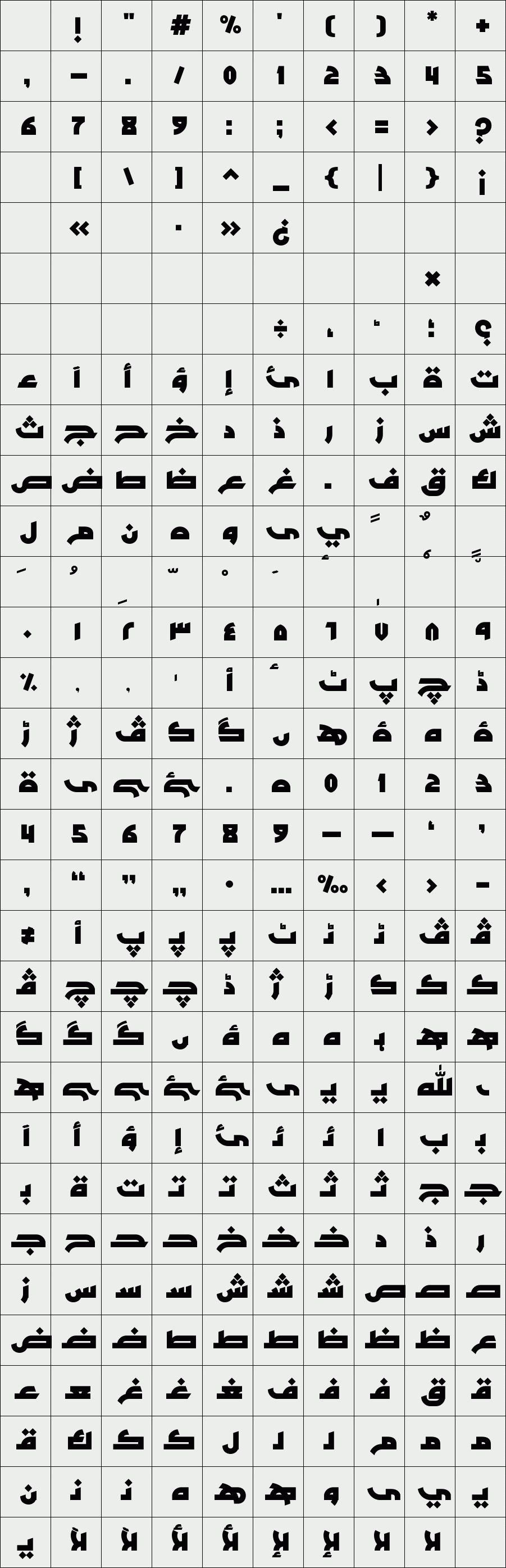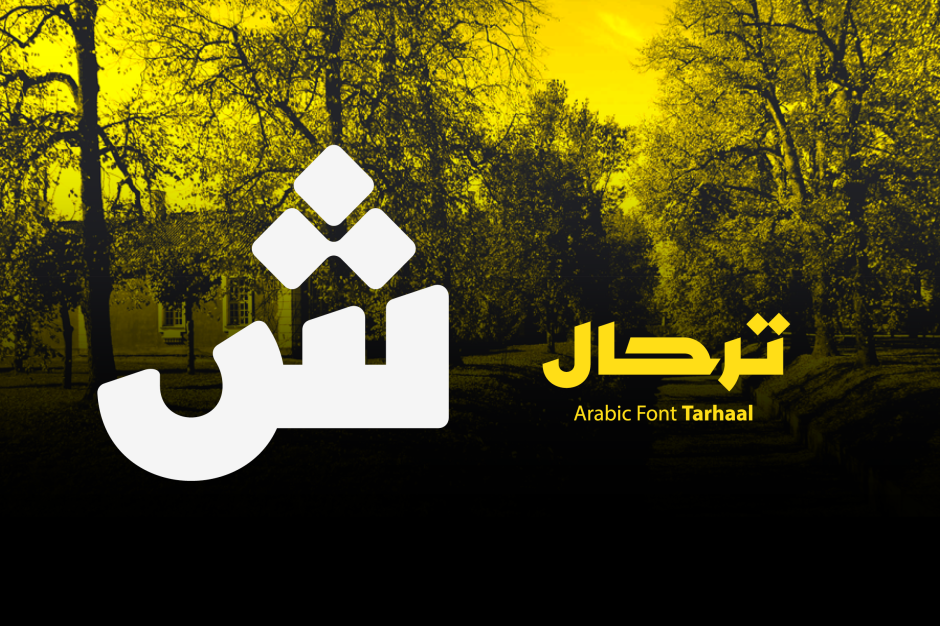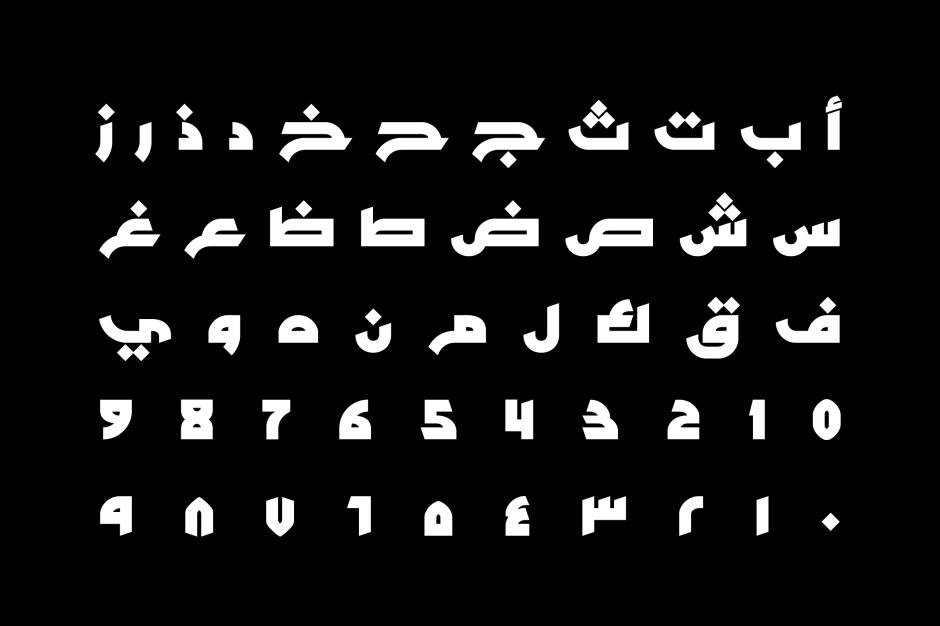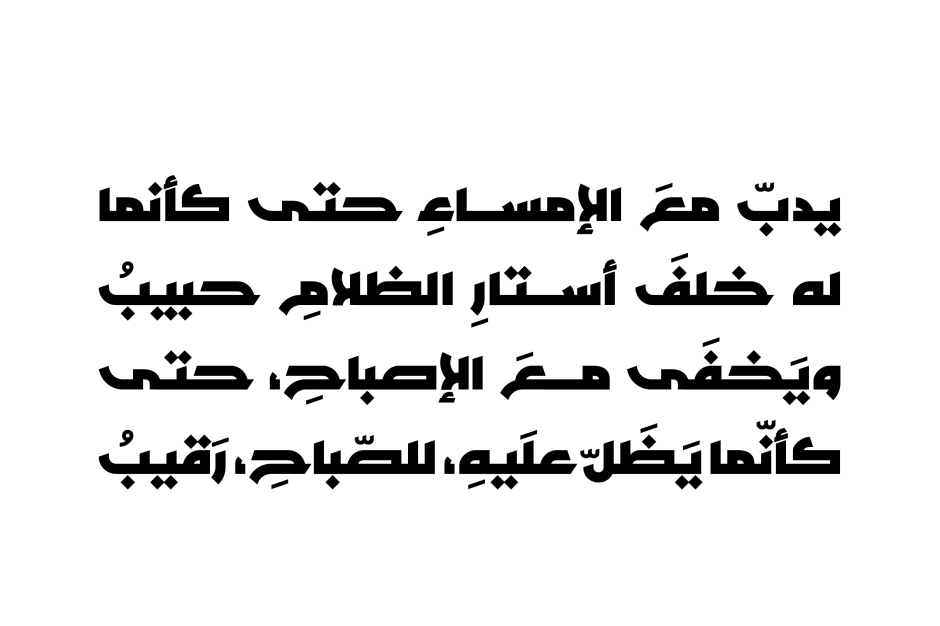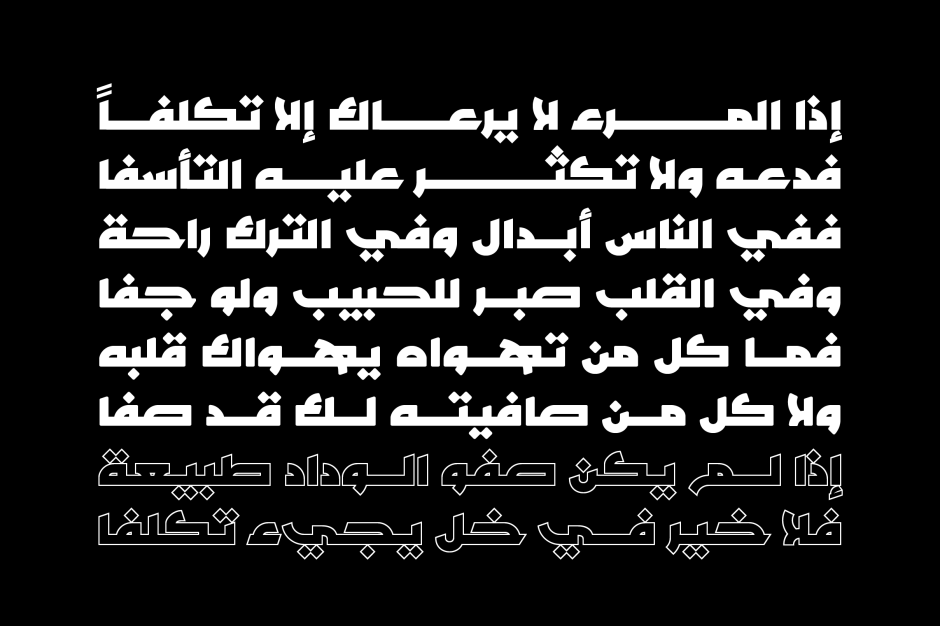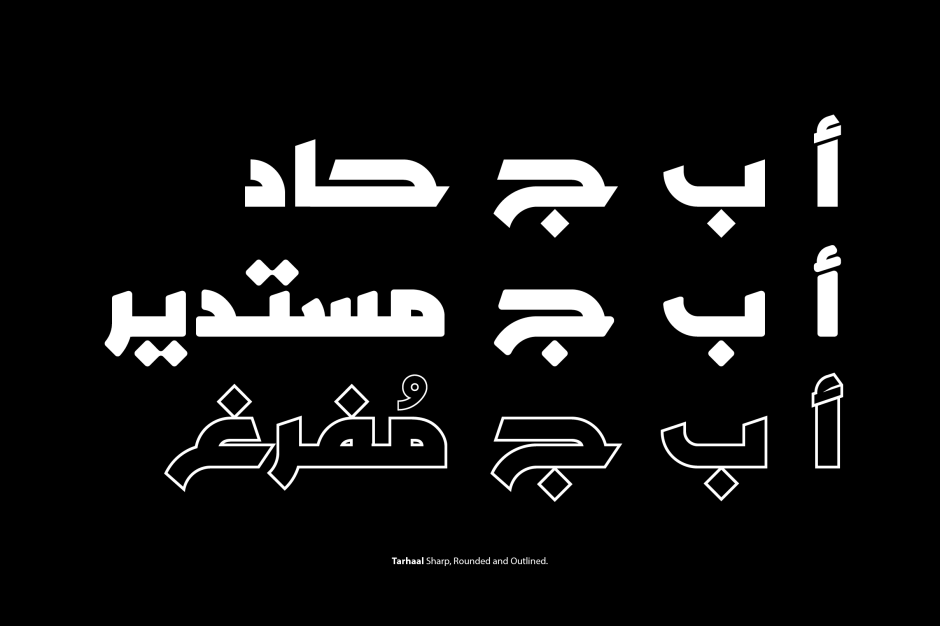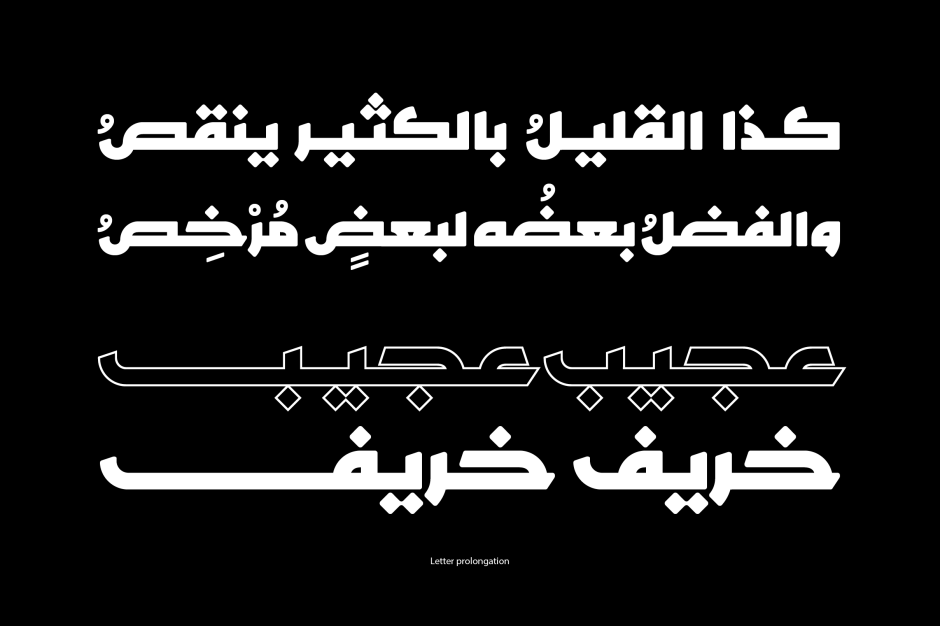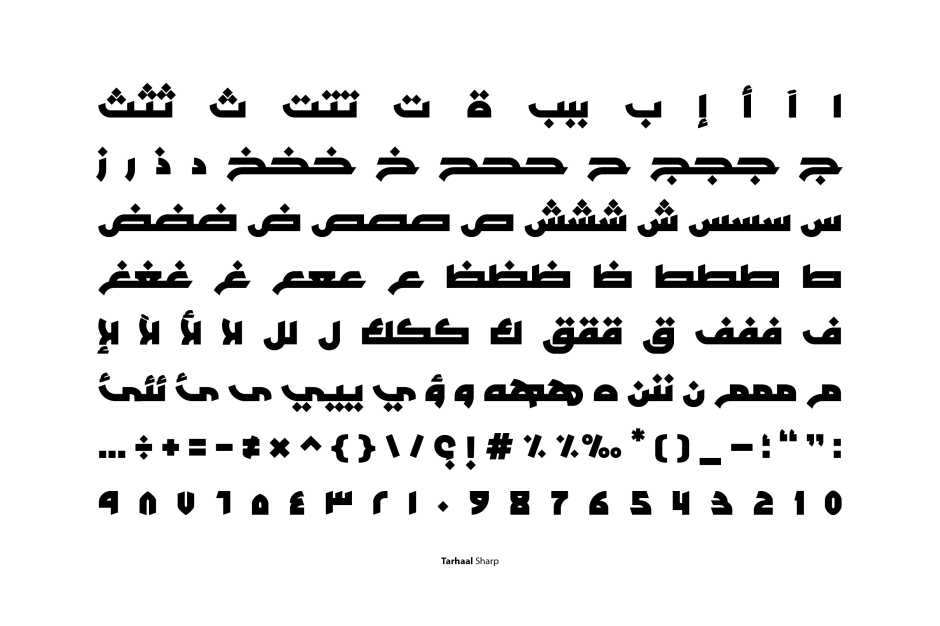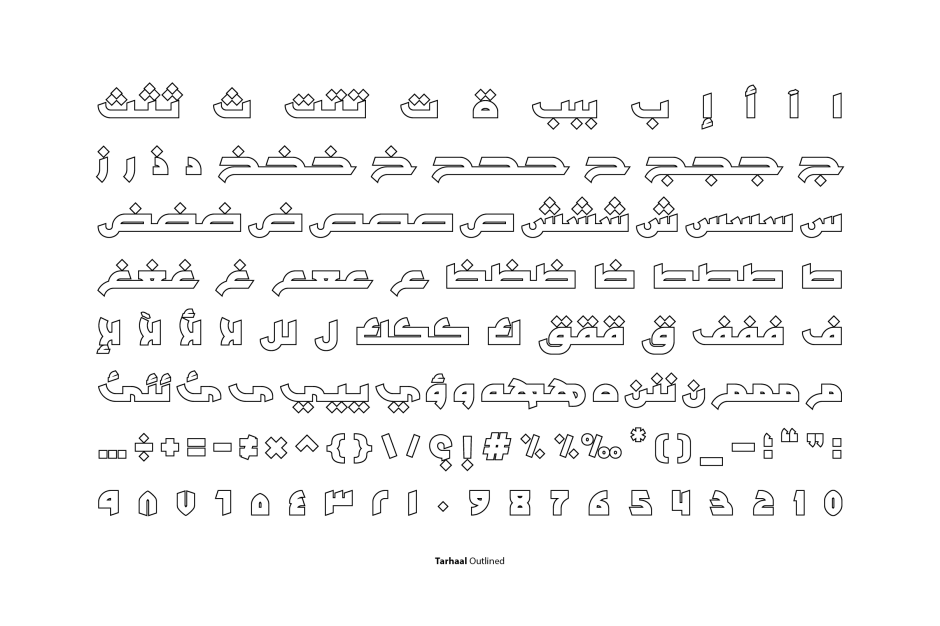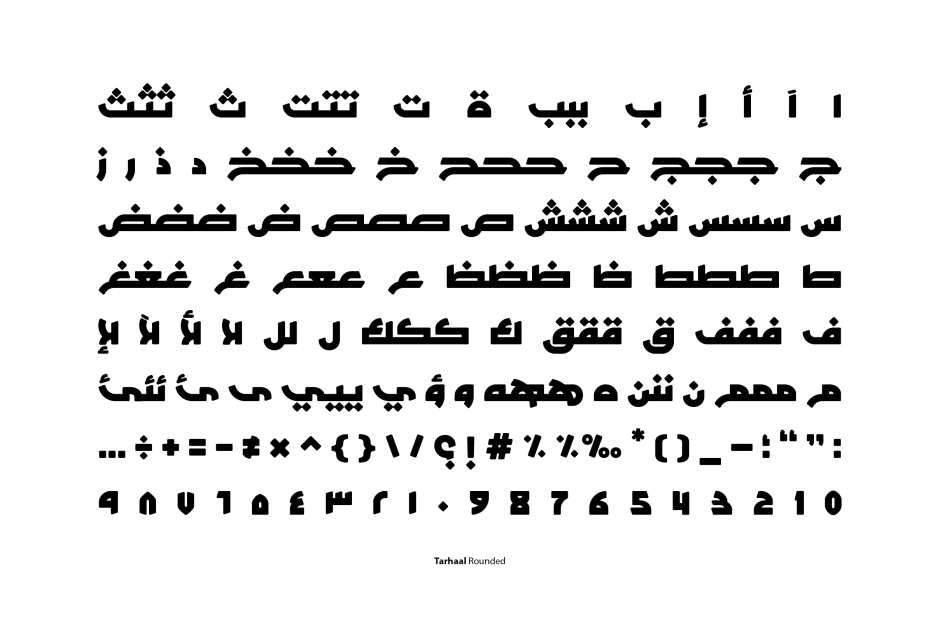
Tarhaal
Tarhaal is an Arabic display font that features a unique style due to its solid geometric structure and its heavy letterforms. The font consists of three styles namely; Sharp, Rounded and Outlined and it suits all kinds of creative heading.